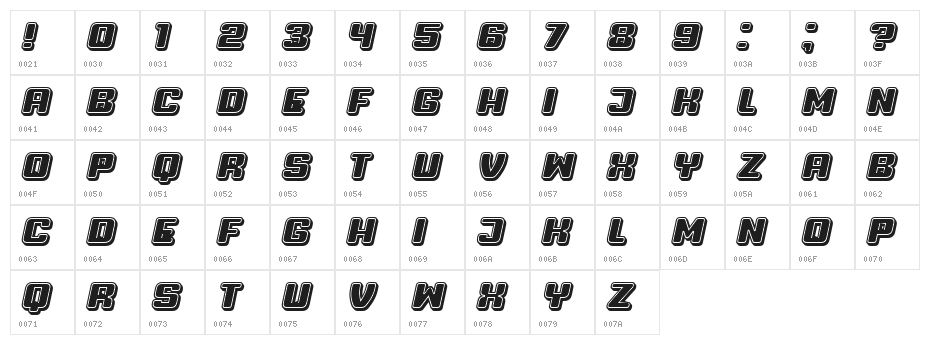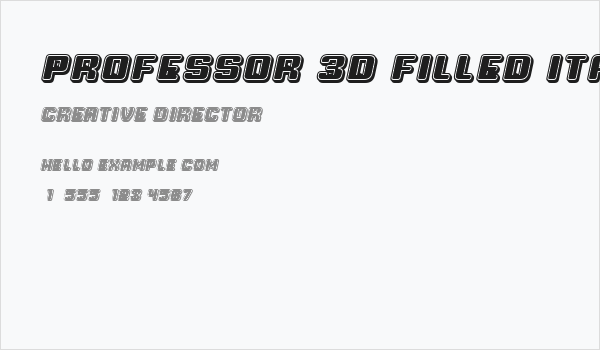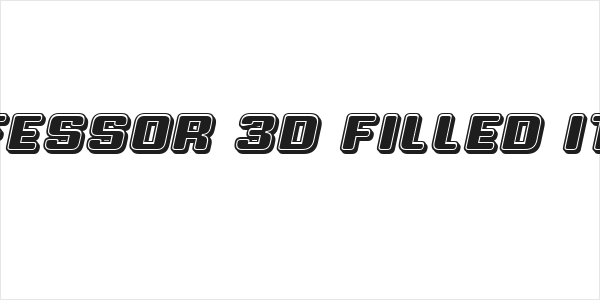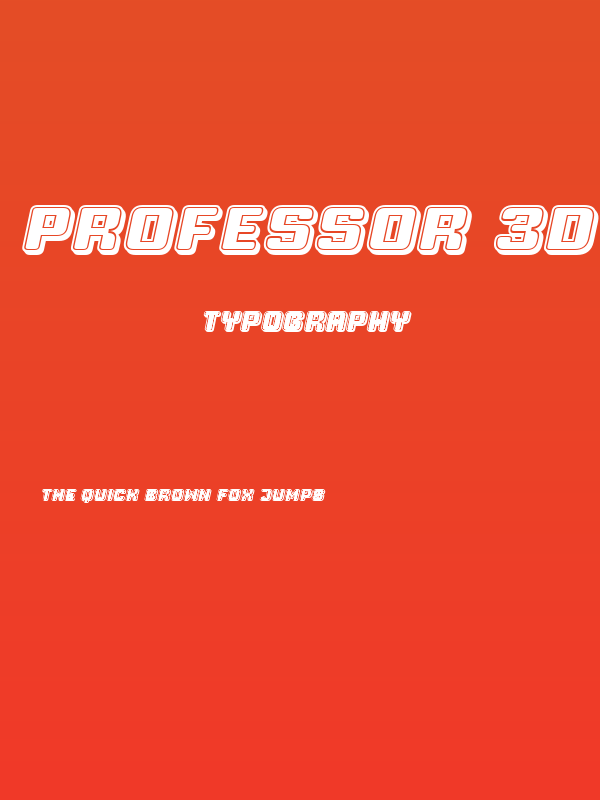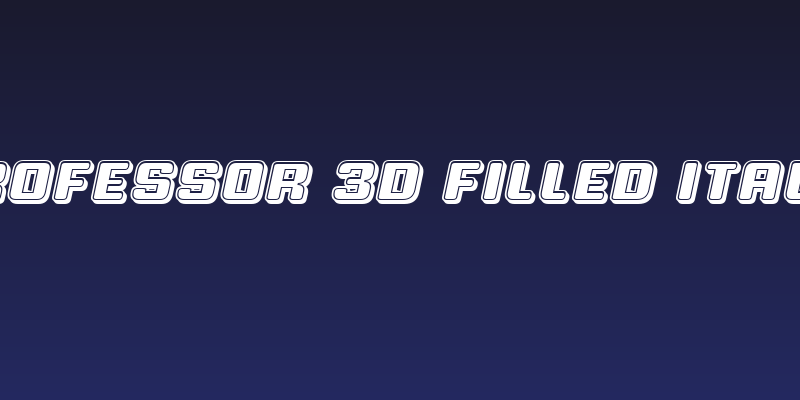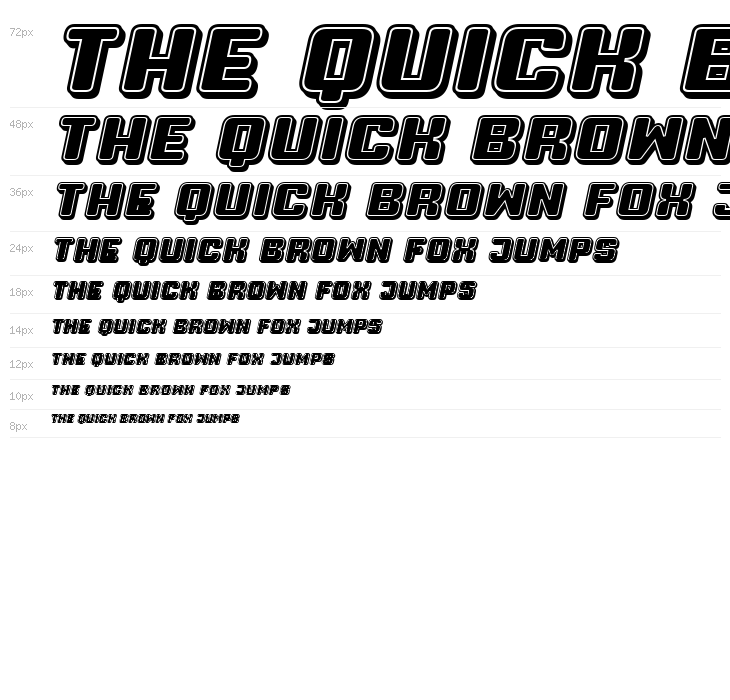
Professor 3D Filled Italic Font
Professor 3D Filled Italic Description
This font features a bold, three-dimensional appearance with a filled italic style. The characters are outlined, giving them a distinct, shadowed look that enhances their depth. The uppercase letters are uniform in height, while the numbers maintain a consistent style with the alphabet. The exclamation mark is bold and prominent, matching the overall aesthetic. The font's design is modern and eye-catching, making it suitable for attention-grabbing headlines or logos. Its filled, italicized form adds a dynamic and energetic feel, perfect for projects that require a strong visual impact.
| Proposed Projects | Ideal for headlines, logos, posters, and any design requiring a bold, impactful typeface. |